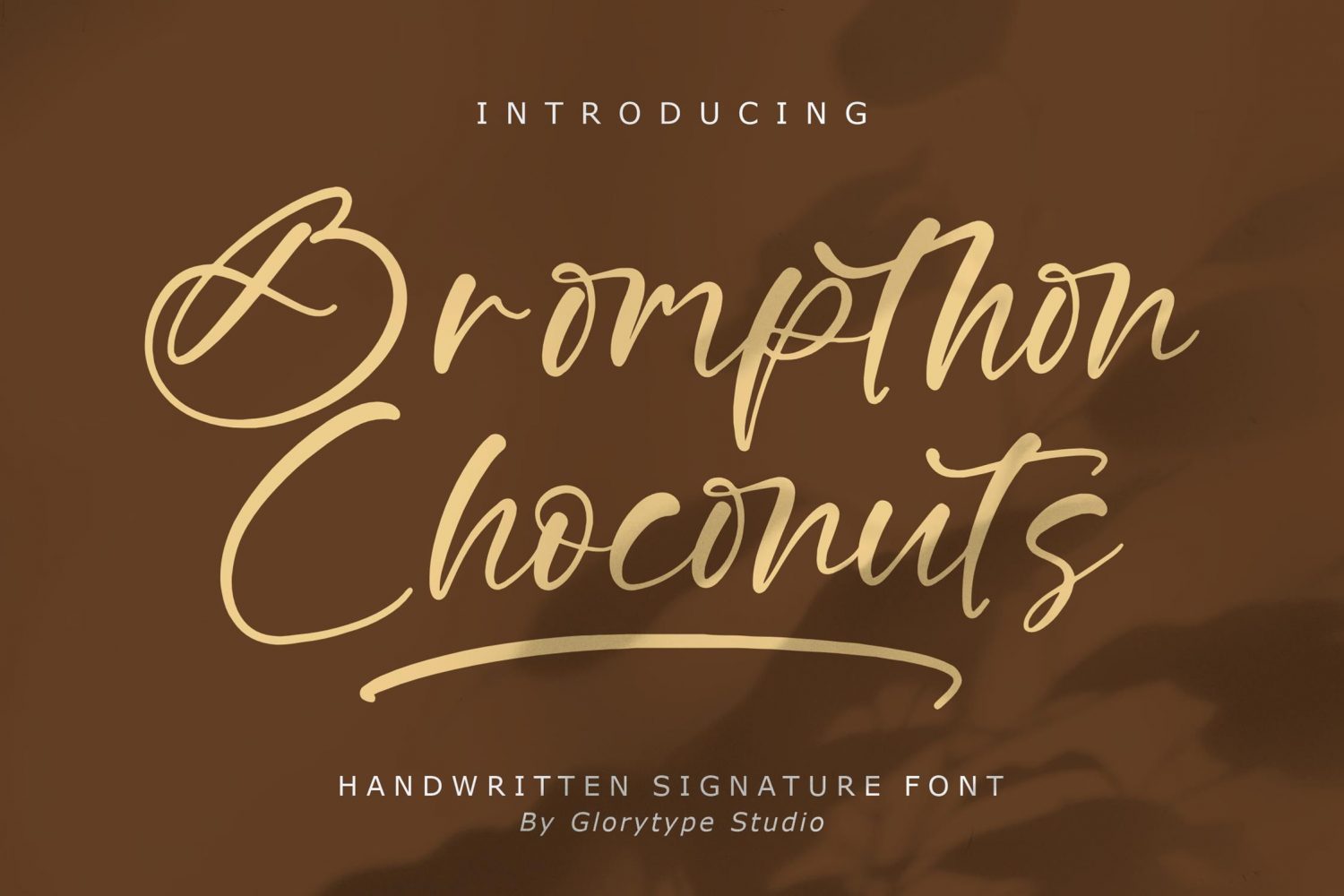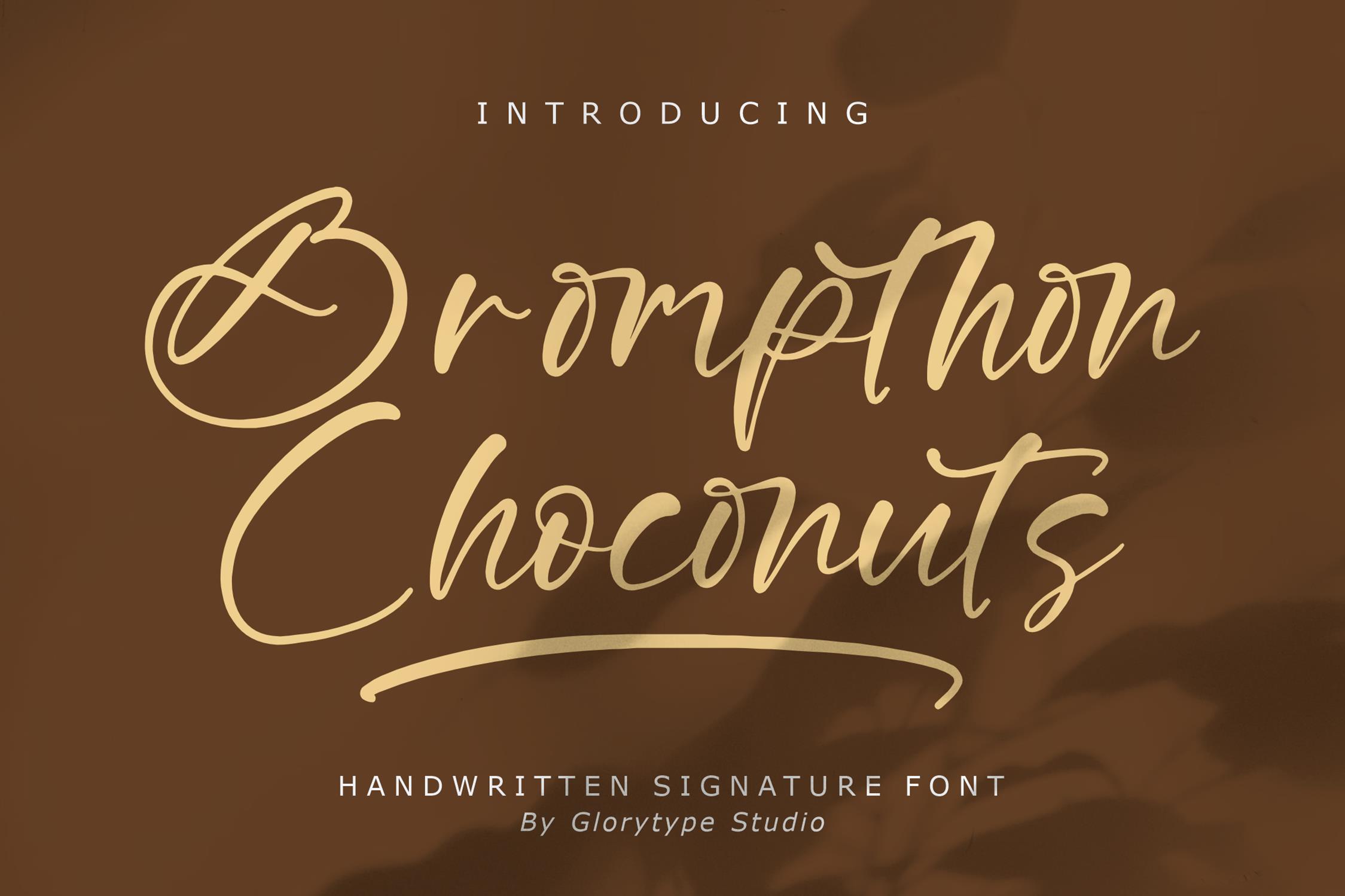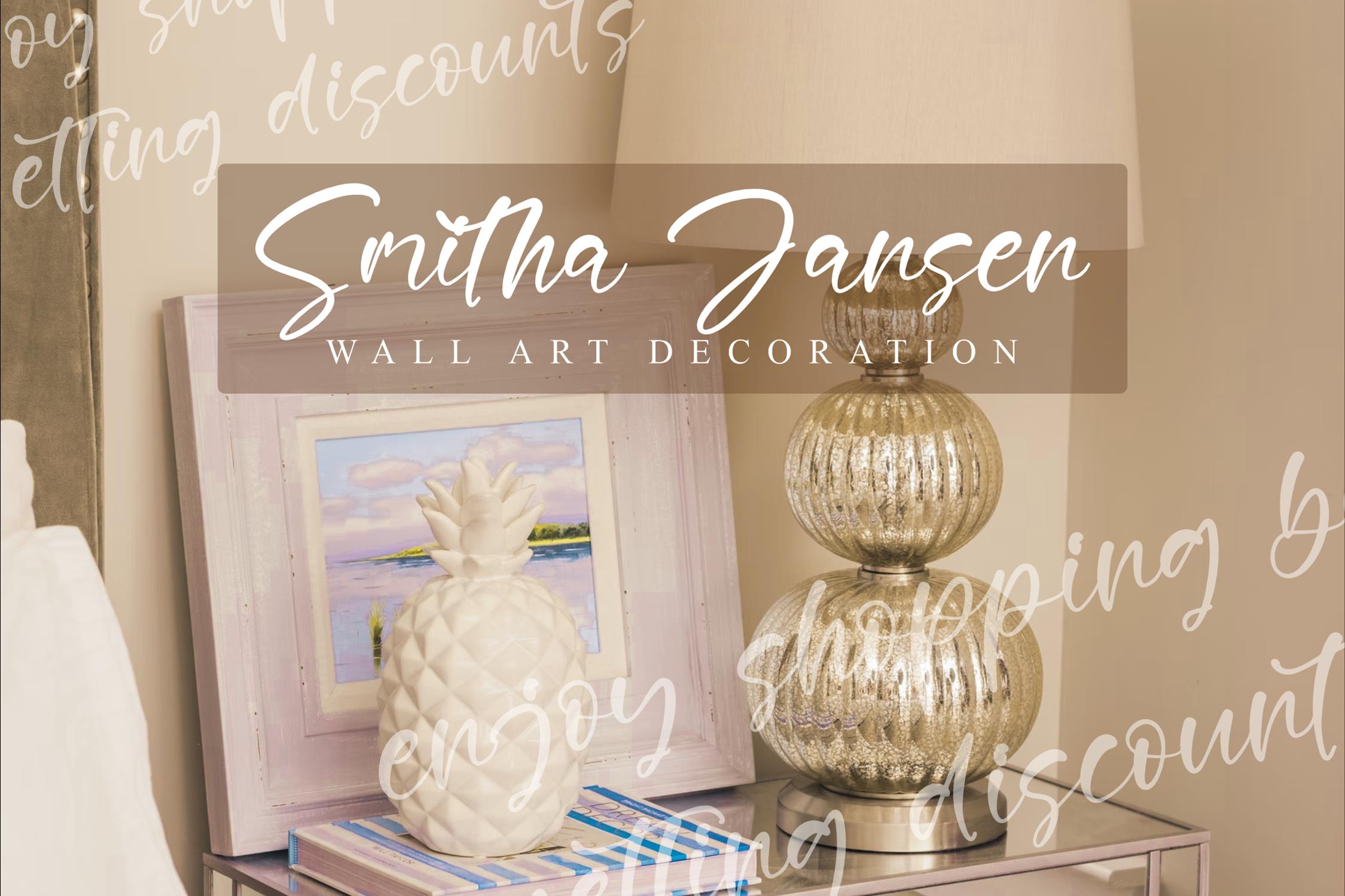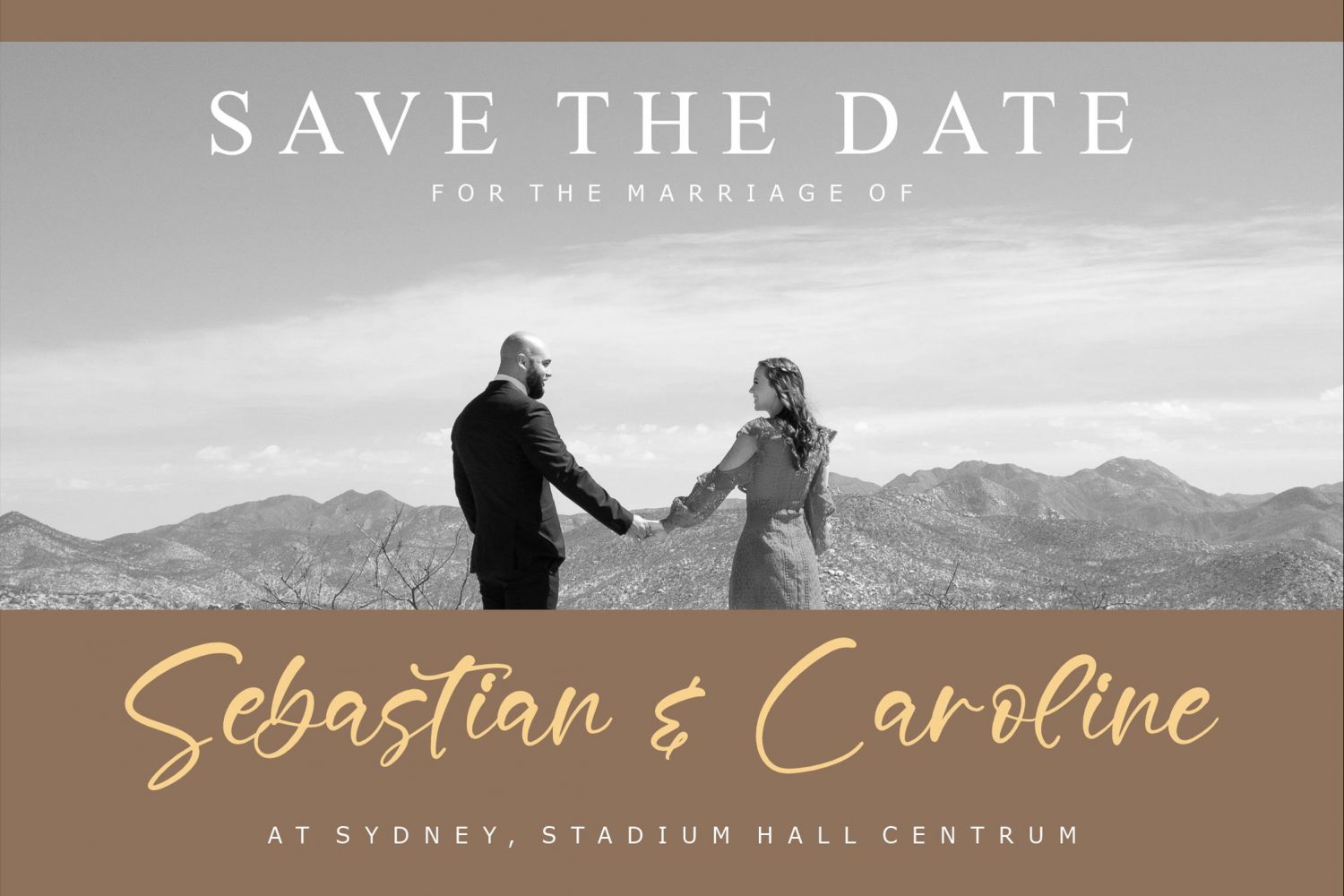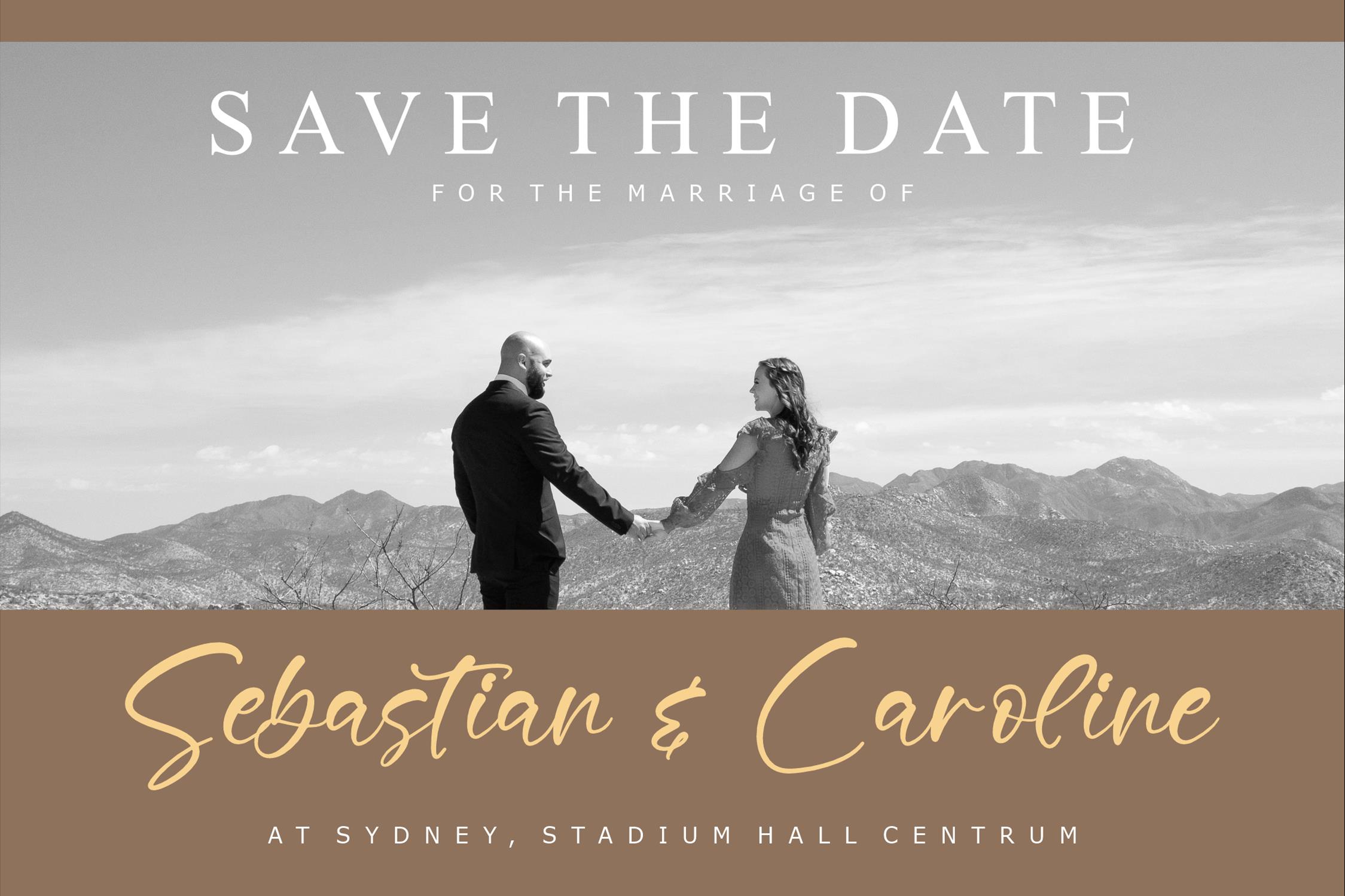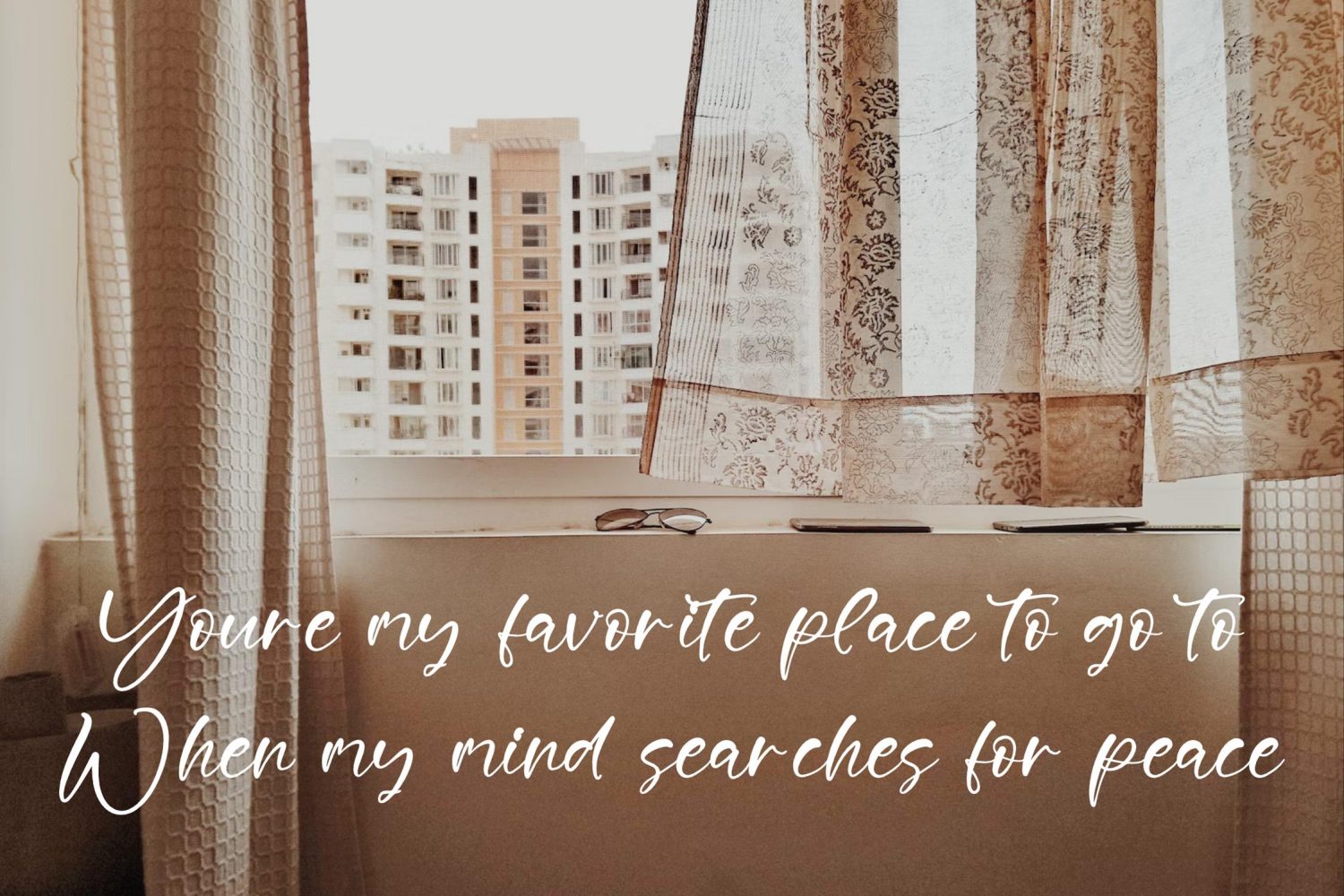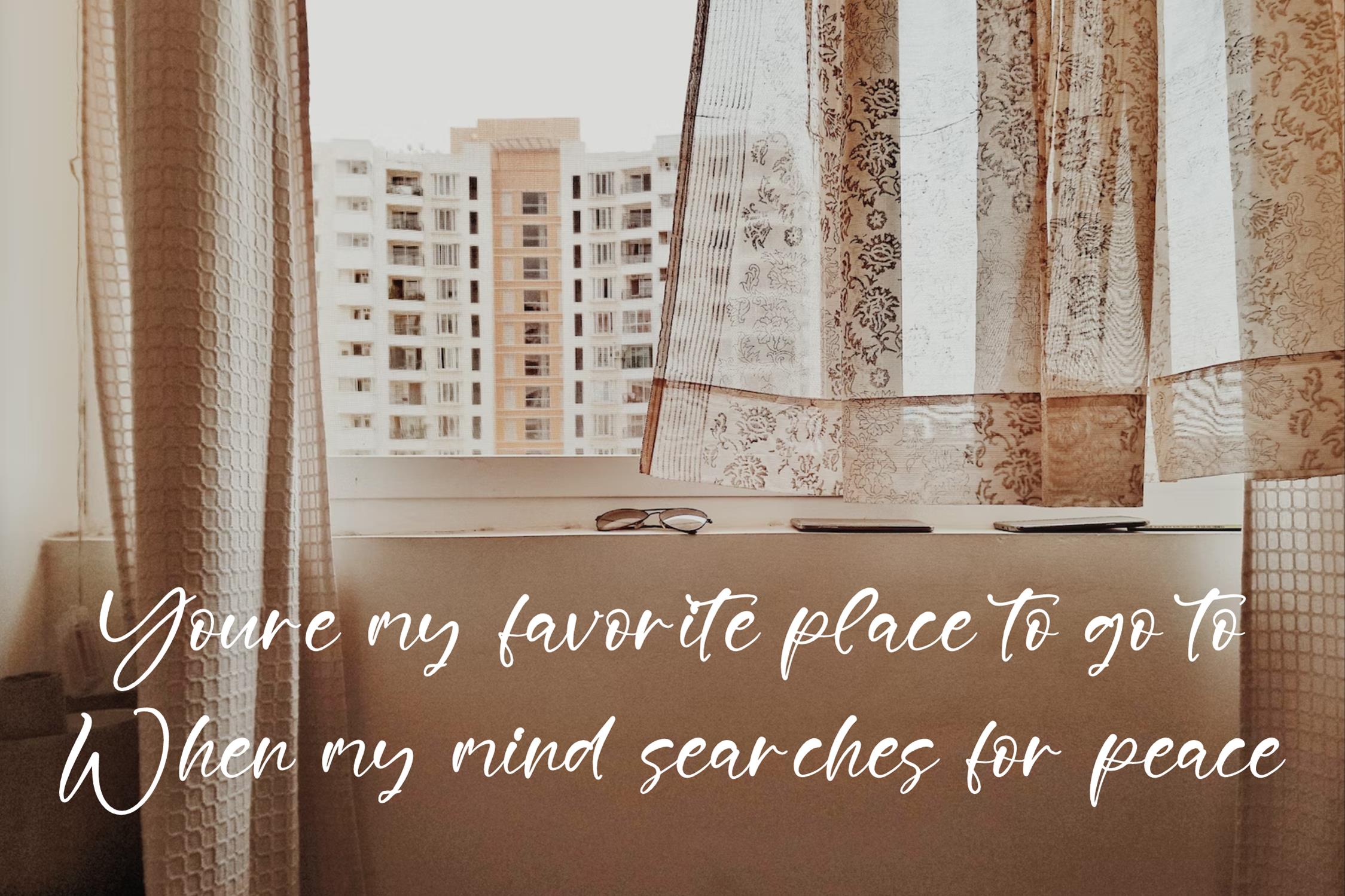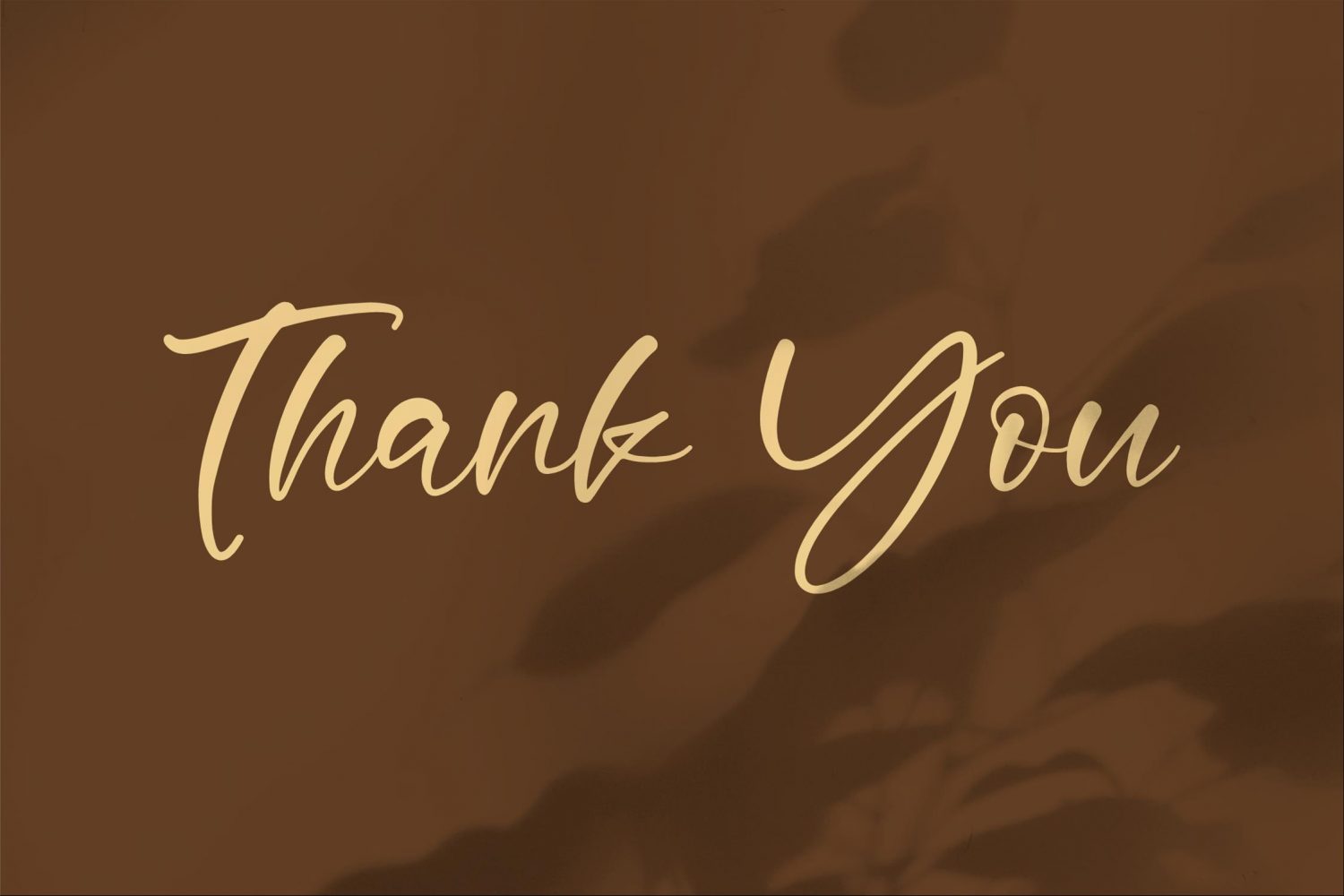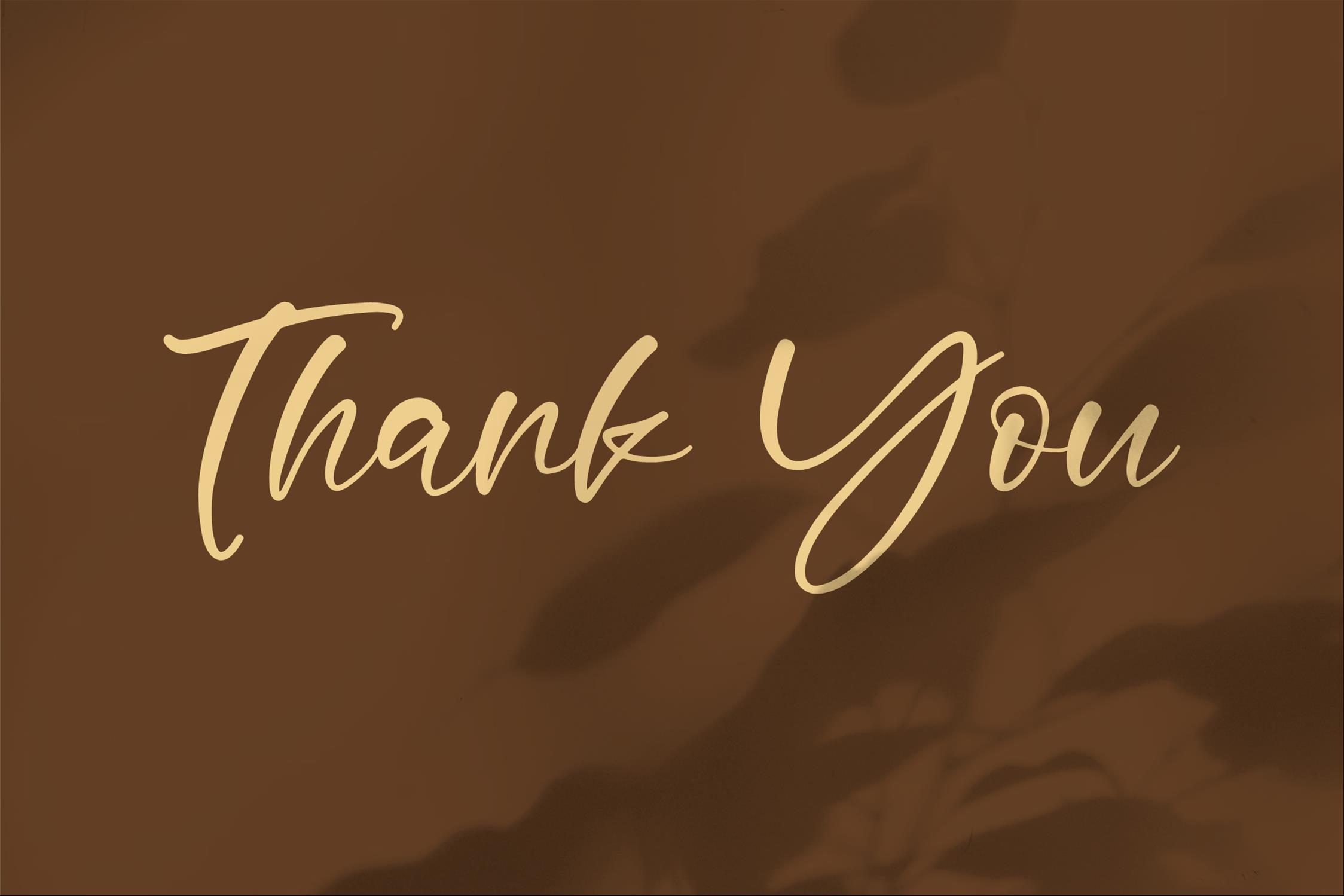
Brompthon Choconuts Free Font
Introducing Brompthon Choconuts – an exquisite script font that radiates pure elegance. Meticulously crafted with intricate details, this font is a true masterpiece. Regardless of the subject matter, Brompthon Choconuts is a valuable addition to your font collection, poised to elevate every creation with its captivating charm. Embrace the allure of this dazzling font and unlock its full potential to enhance your designs to new levels of beauty and sophistication. Don’t miss the opportunity to make Brompthon Choconuts an essential asset in your font library. This free typeface was designed by a talented Jimtype Studio. If you like it don’t forget to check out the full version.